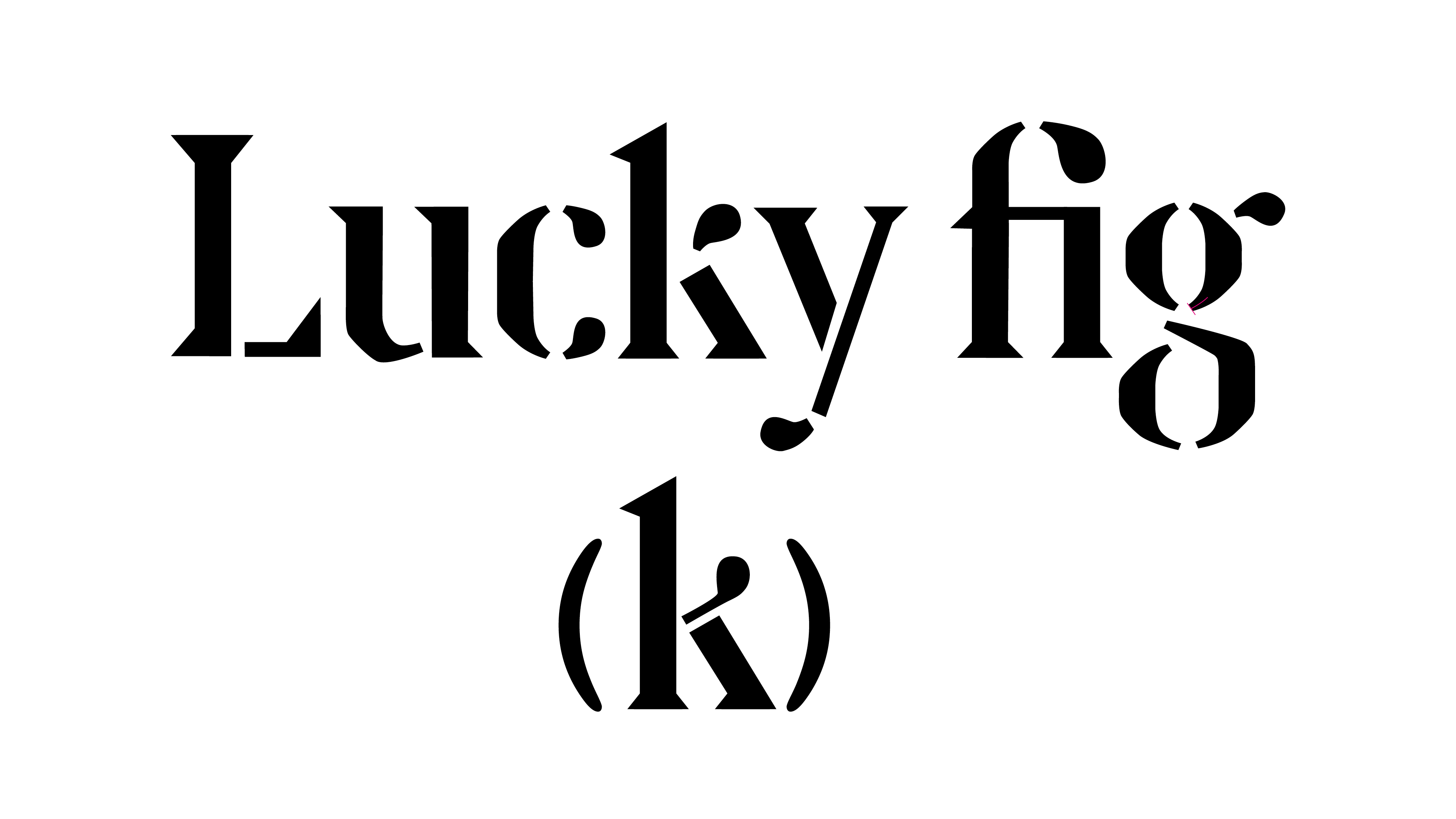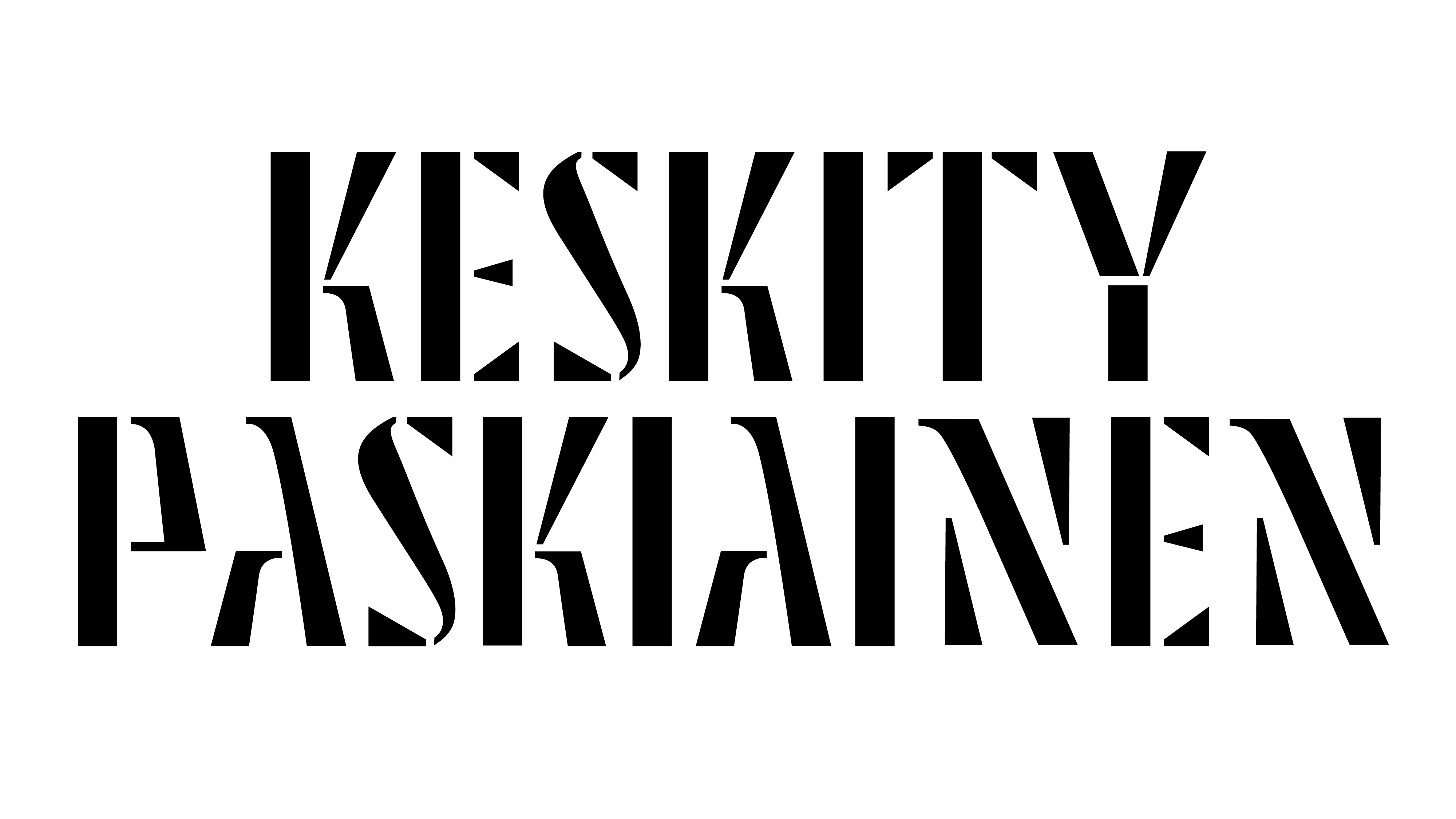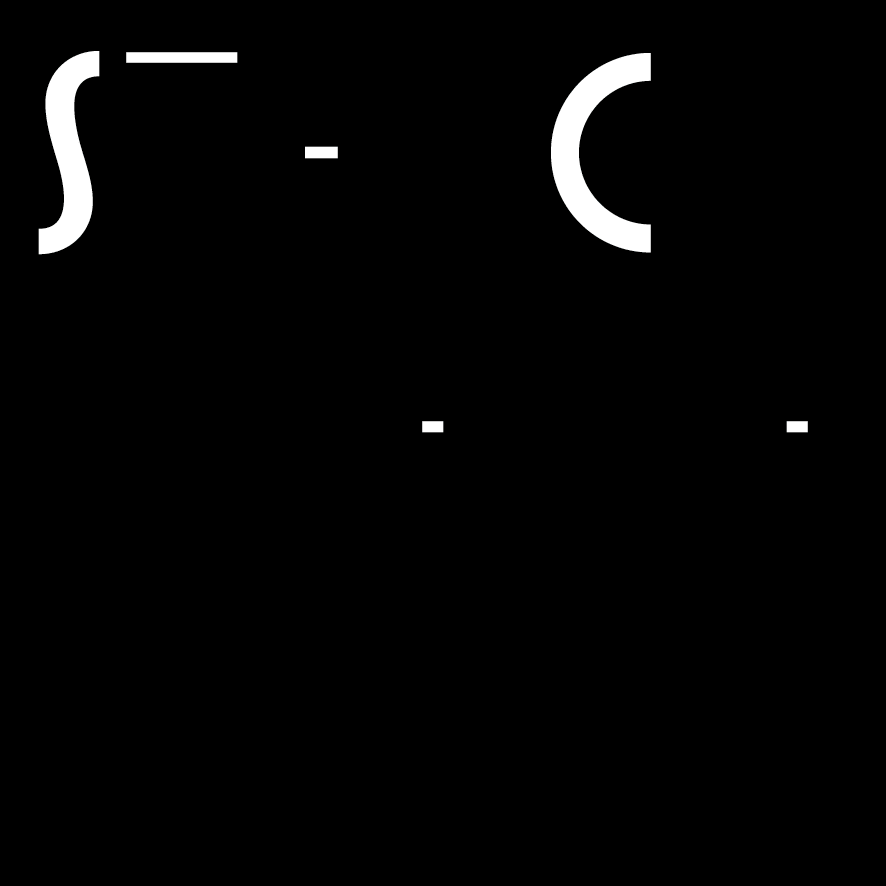
Understanding Type Design as a Tool for Graphic Designers
Stencil Type Design has been proven as a great way to explain and practice the principles underlying the design of typefaces.
In this workshop, we will offer participants the possibility of creating the main characters of an alphabet constructed with a limited amount of elements. We will design typographic characters to compose a word, a message, or a logo, that will serve later, to cut out stencils in a resistant material to be painted or printed. It can be solved manually or digitally.
Learning Outcomes
—To understand and practice the principles underlying the design of typefaces.
—Set the basis for creating a full alphabet from a few existing characters.
—Reflect on the role of typography in the field of identity and experience the design of custom types. All together can be understood as ‘type design as a tool for designers’.
Preparation
All participants will have to do preliminary research about stencil sentences or words found in the streets or in articles or old catalogs. They will serve as the starting point for the project. From that material, we will extract the alphabets to work on, and define the parts, adapting the work process to each style.
In the first two sessions, we will all be sketching by hand, the next two can be manual or digital drawing. In case the participant wants to continue digital, he or she will have to be skilled and autonomous in vector drawing design.